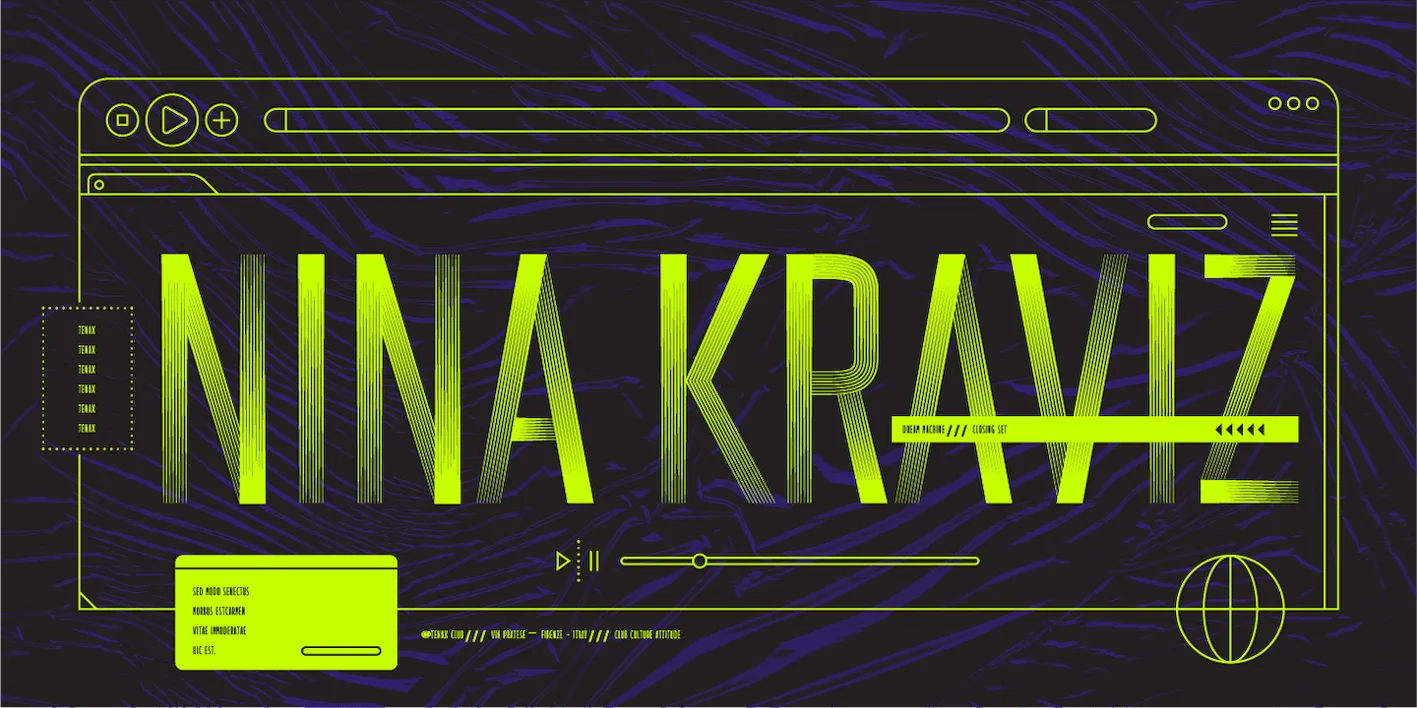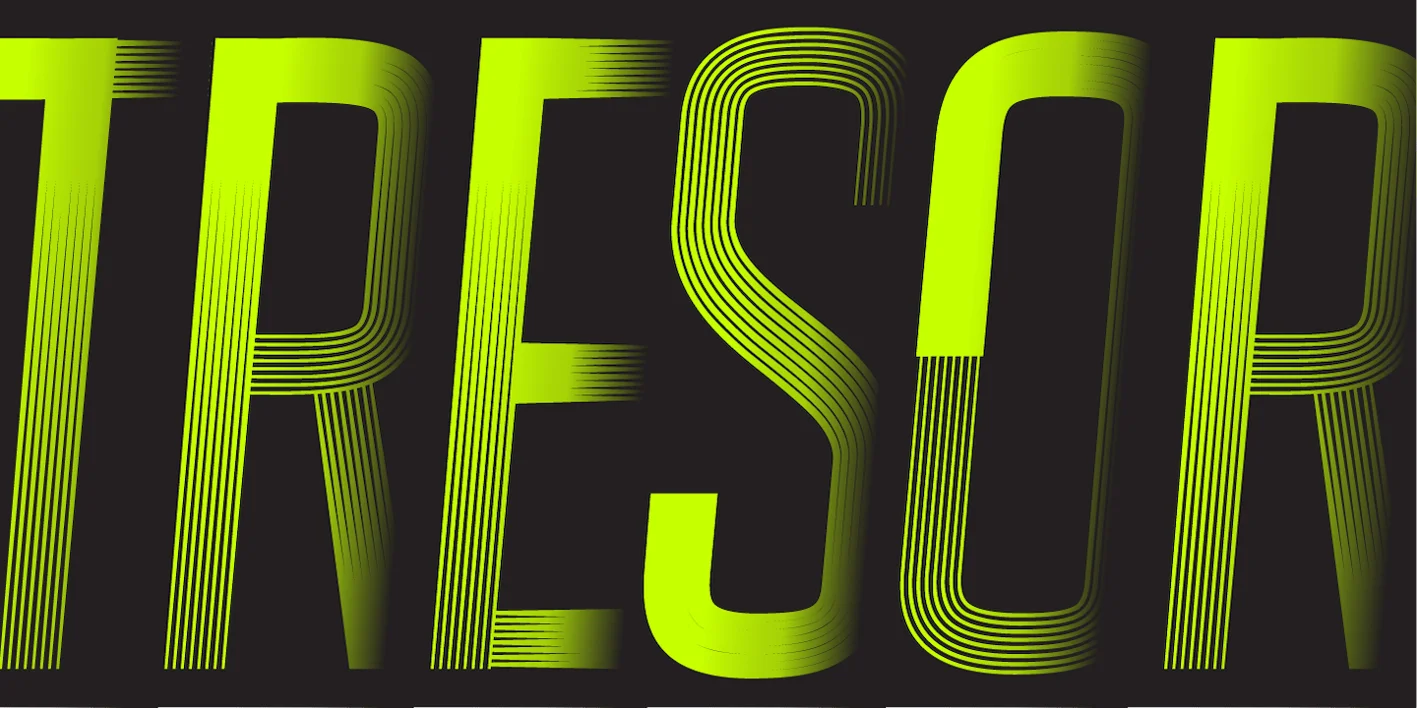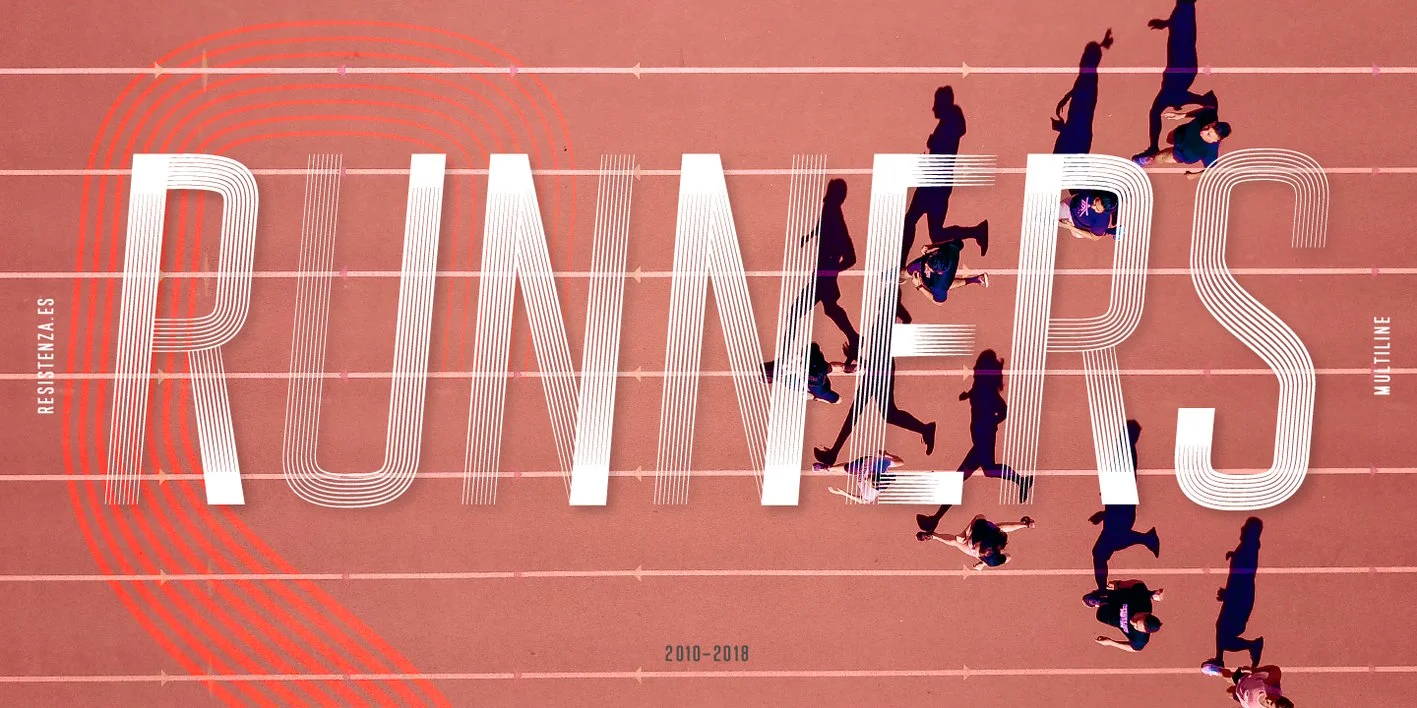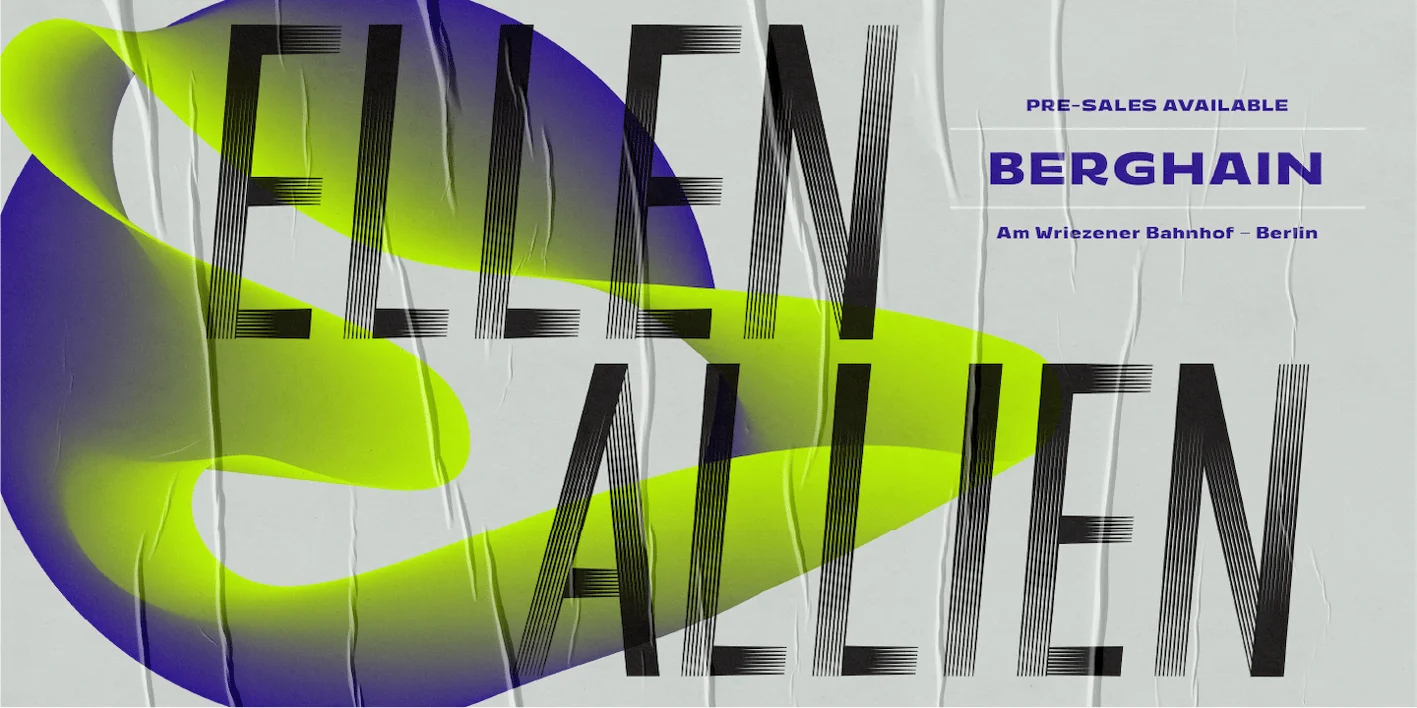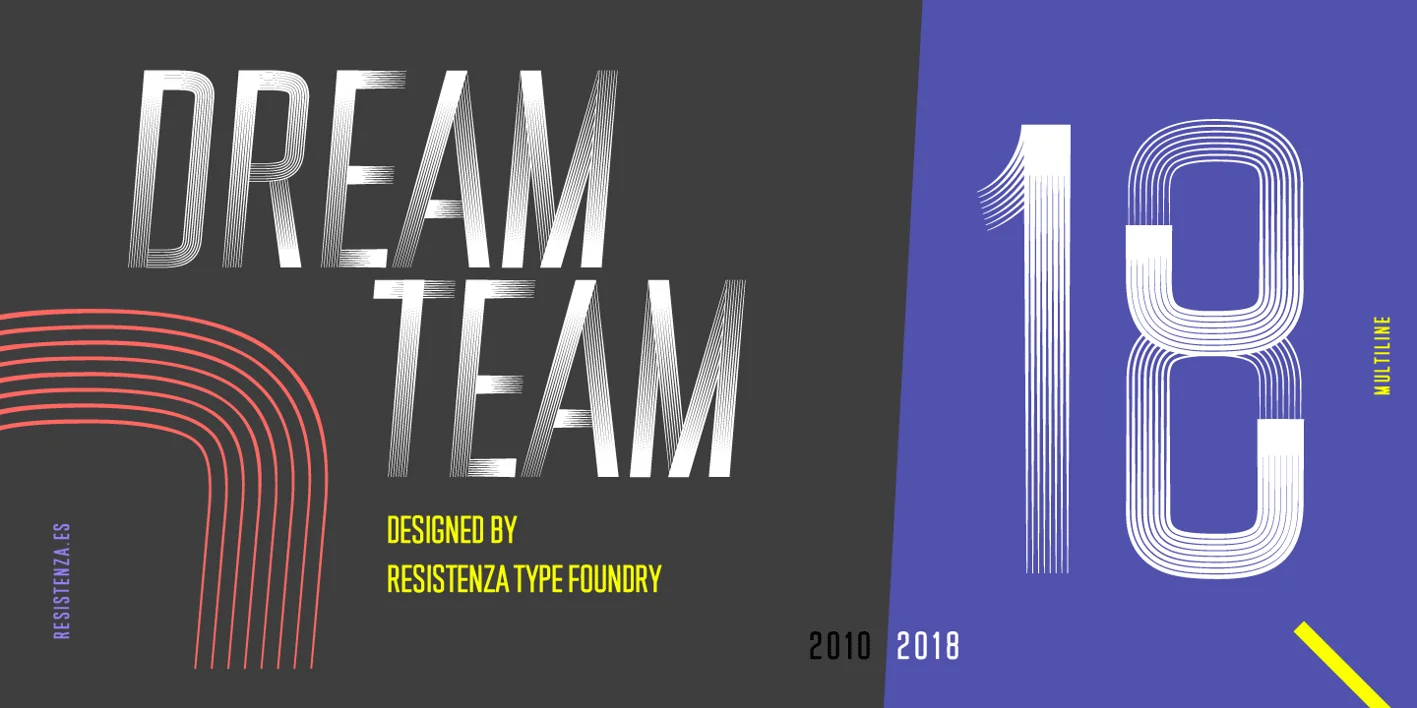
DreamTeam Font
Few typefaces manage to balance optical balance across all weights with genuine day-to-day practicality. DreamTeam is one of them. The typeface brings a versatile sensibility to a broad range of creative disciplines, with strong typographic hierarchy support that holds up whether the work is print-first or screen-first.
In practice, DreamTeam proves particularly effective for advertising campaigns, editorial layouts, social media graphics, brand identity systems, packaging design. Designers reaching for it find that the type decisions feel resolved rather than laboured — a useful quality when client timelines are tight.
The range of applications extends to product labels, logo design, web design, annual reports. That breadth is deliberate: the proportions and spacing were stress-tested across a wide range of mock briefs before the typeface was finalised.
At smaller sizes the design retains its character without becoming cluttered. This resilience across scales makes DreamTeam equally suitable for a business card and a billboard — a useful property when assets must scale across a campaign.
Motion designers building title sequences and lower thirds find DreamTeam a reliable choice for projects that demand both personality and restraint. The design avoids the self-conscious quirkiness that dates quickly, settling instead for considered distinctiveness that holds up over time.